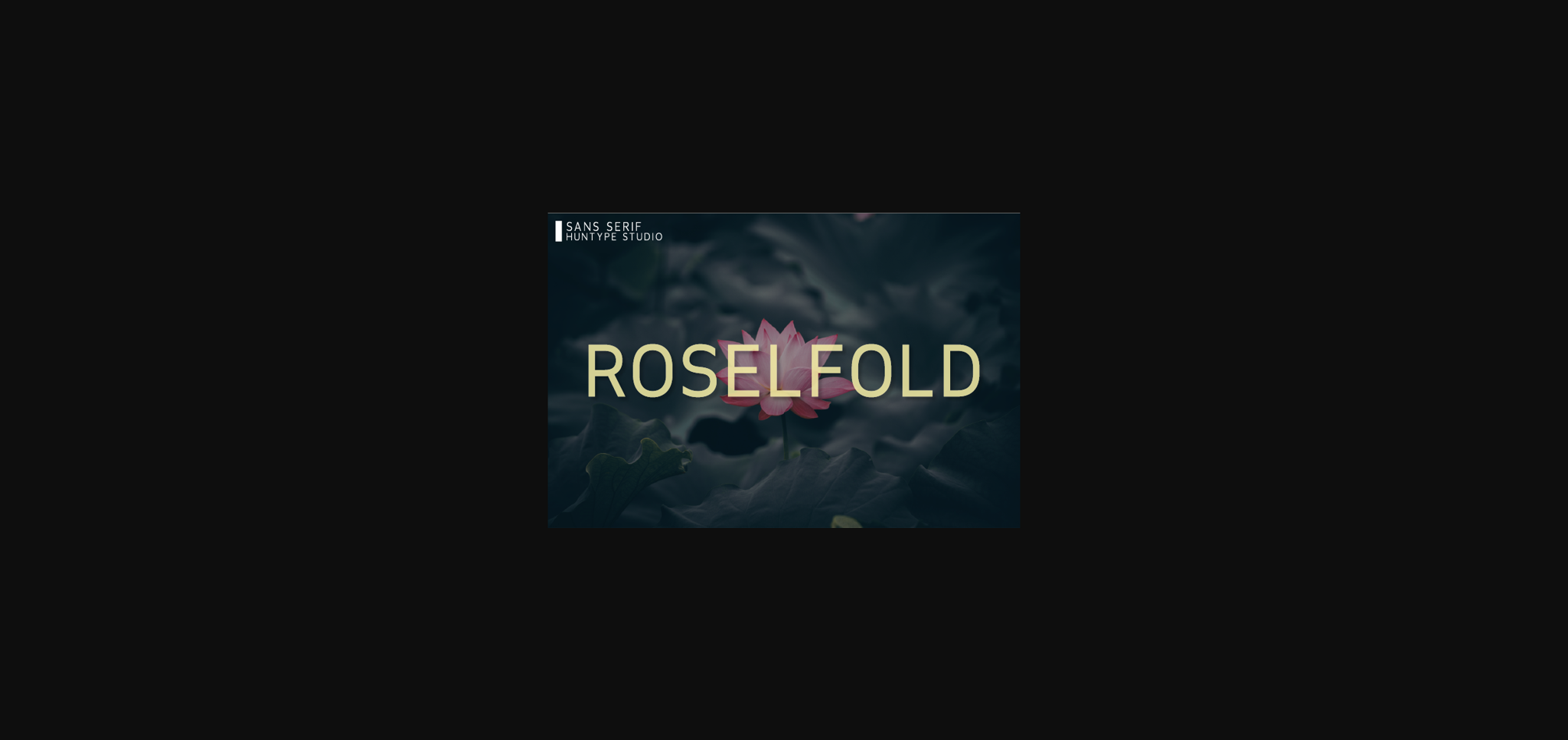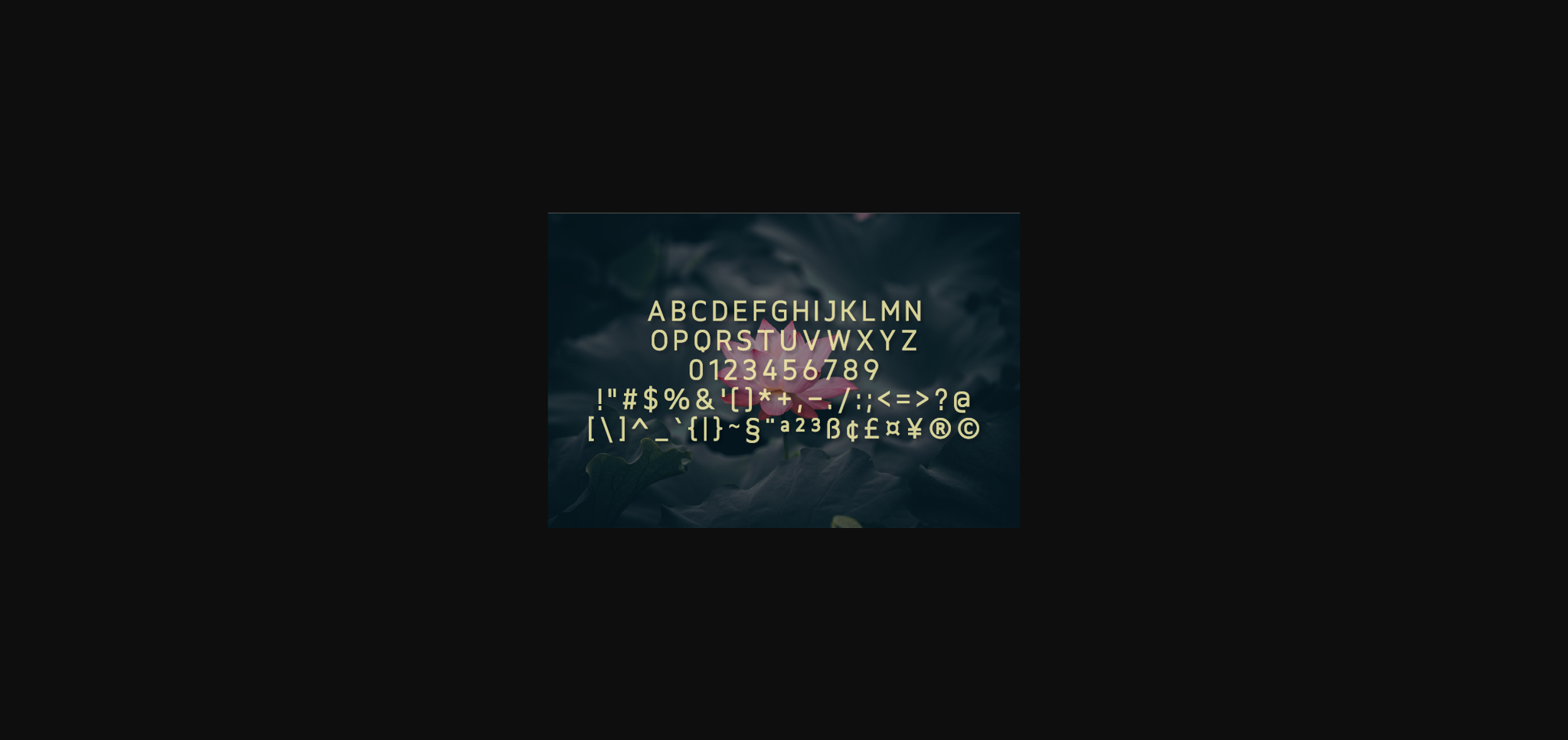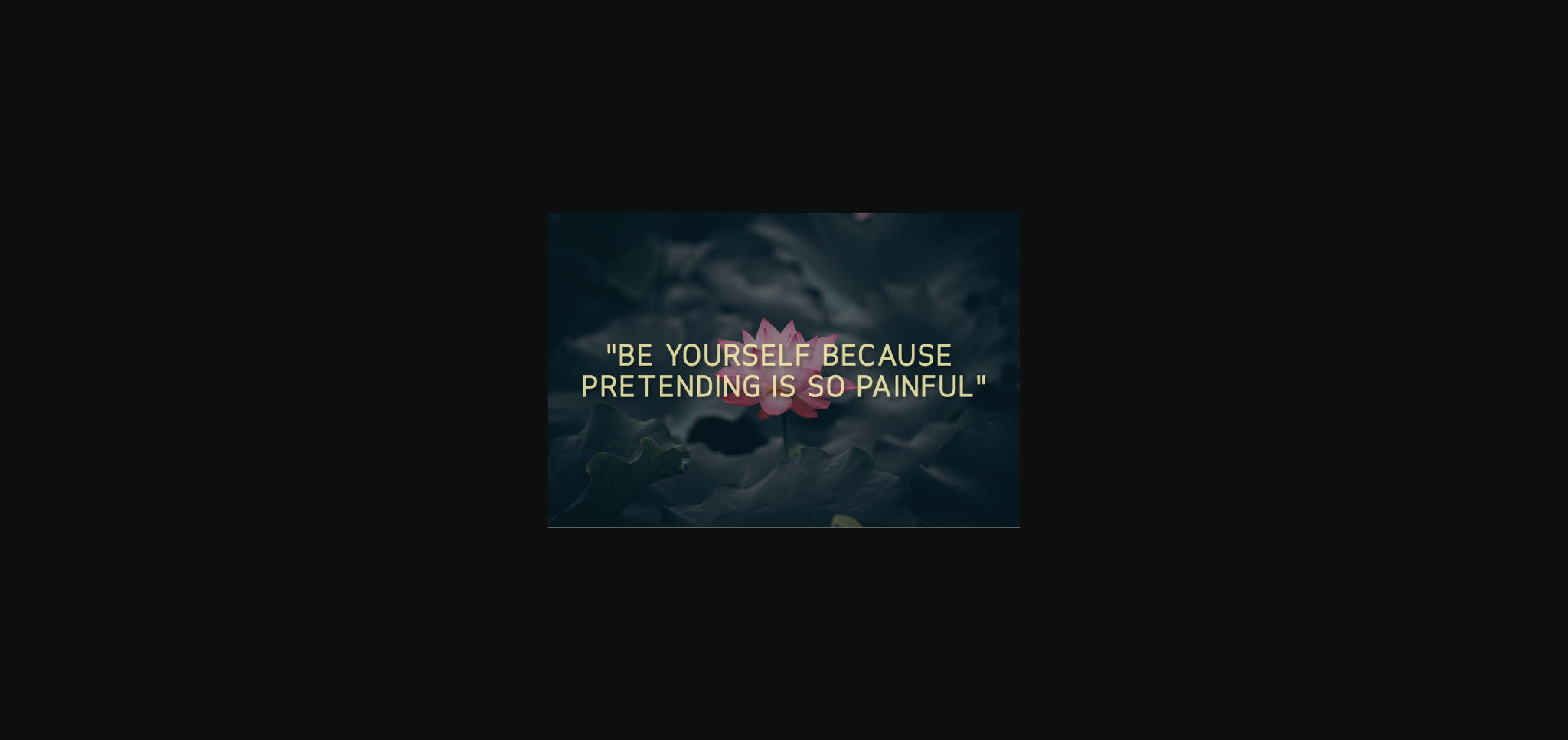
Roselfold Font
About Roselfold Font
Roselfold is a minimal and neat sans serif font. It can easily be matched to an incredibly large set of projects, so add it to your creative ideas and notice how it makes them stand out!